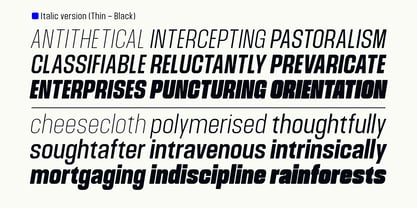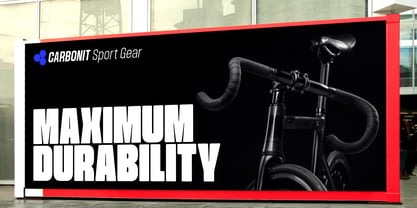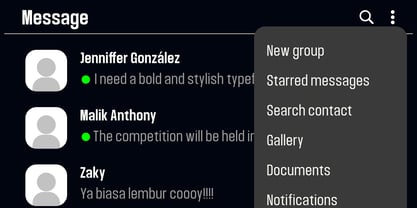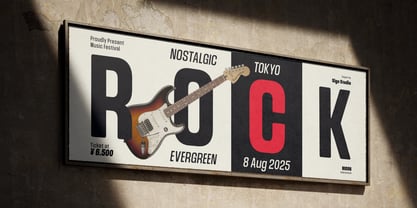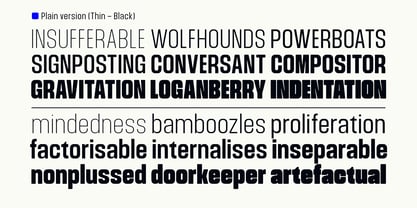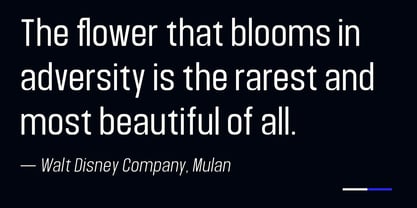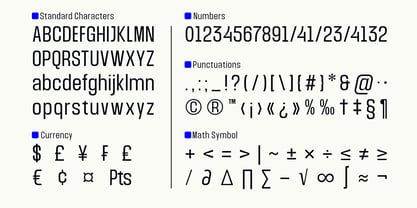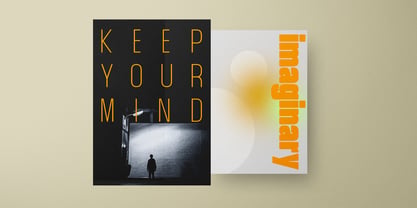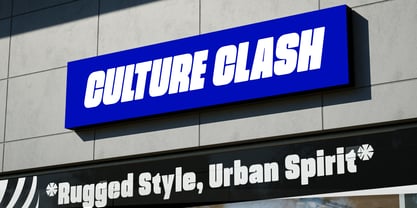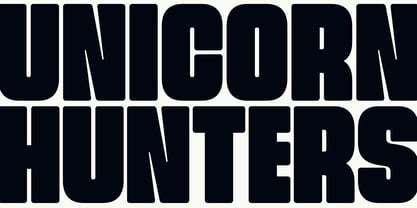
Nicon VF
by Sign Studio
The Nicon VF Font Family was designed by Sugi Yanto and published by Sign Studio. Nicon VF contains 1 styles. More about this family
Introducing Nicon VF — the variable edition of the Nicon typeface.
Carrying the same semi-condensed elegance and modern minimalism of the original Nicon, Nicon VF unlocks enhanced creative freedom with two variable axes: Weight (Thin to Black) and Italic. Seamlessly adjust weight and slant with precision—all in a single, efficient font file.
Just like its static counterpart, Nicon VF preserves the family’s refined character, high legibility, and broad multilingual support. But with variable technology, it adapts effortlessly to modern workflows—ideal for responsive branding, adaptive web typography, and dynamic motion graphics.
Whether you need subtle sophistication or bold expression, Nicon VF ensures every transition feels smooth and intentional, giving your designs consistency without limits.